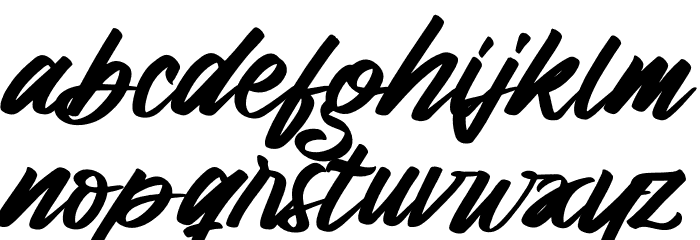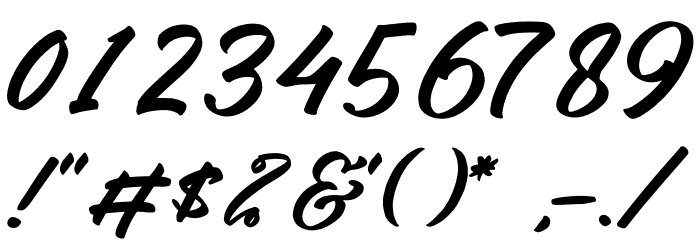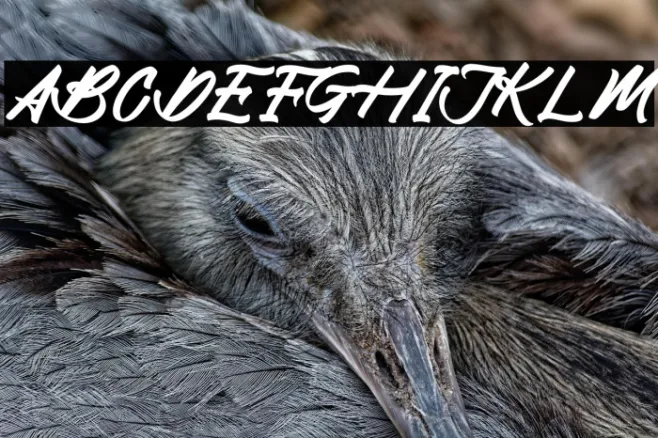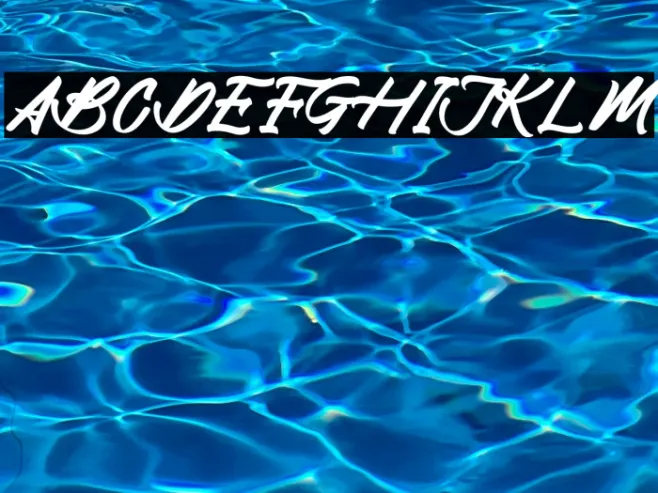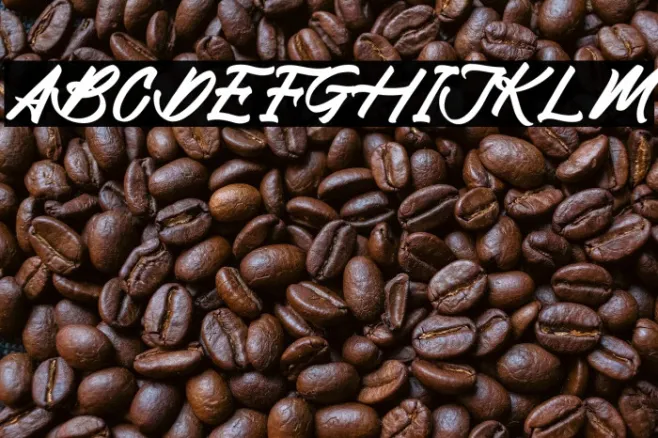
Rock Degun Font
This font features a bold, cursive style with a dynamic and flowing appearance. The letters are interconnected, creating a seamless and elegant script. The uppercase letters maintain a consistent height, while the lowercase letters exhibit a slight slant, enhancing the fluidity of the text. The numerals are equally stylized, matching the overall aesthetic of the alphabet. Special characters are included, maintaining the same bold and cursive characteristics. This font exudes a sense of sophistication and creativity, making it suitable for various artistic and expressive applications.
A bold, cursive font with interconnected letters and a flowing style.
- Font: Rock Degun
- Proposed Projects: Ideal for wedding invitations, greeting cards, branding, and logo design.
- Category: Script
- Character Spacing: Tight
- Use Case: Logos, Invitations, Artistic projects